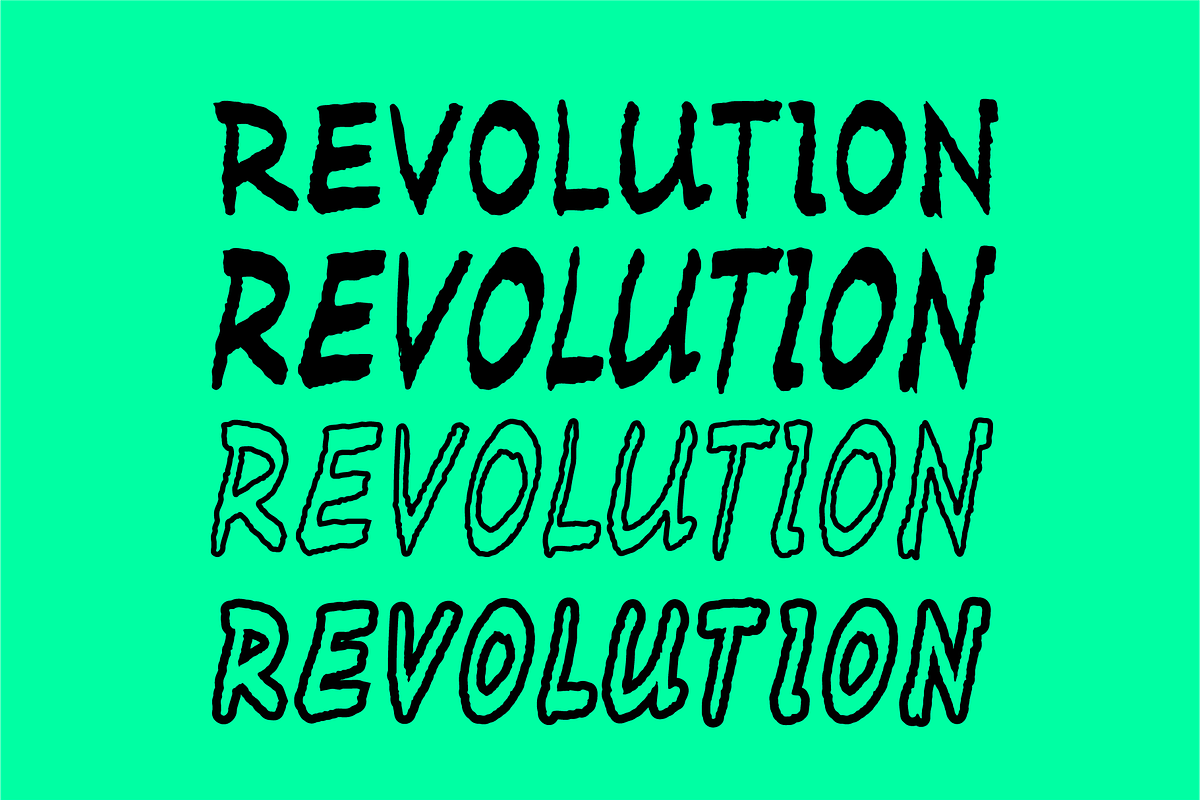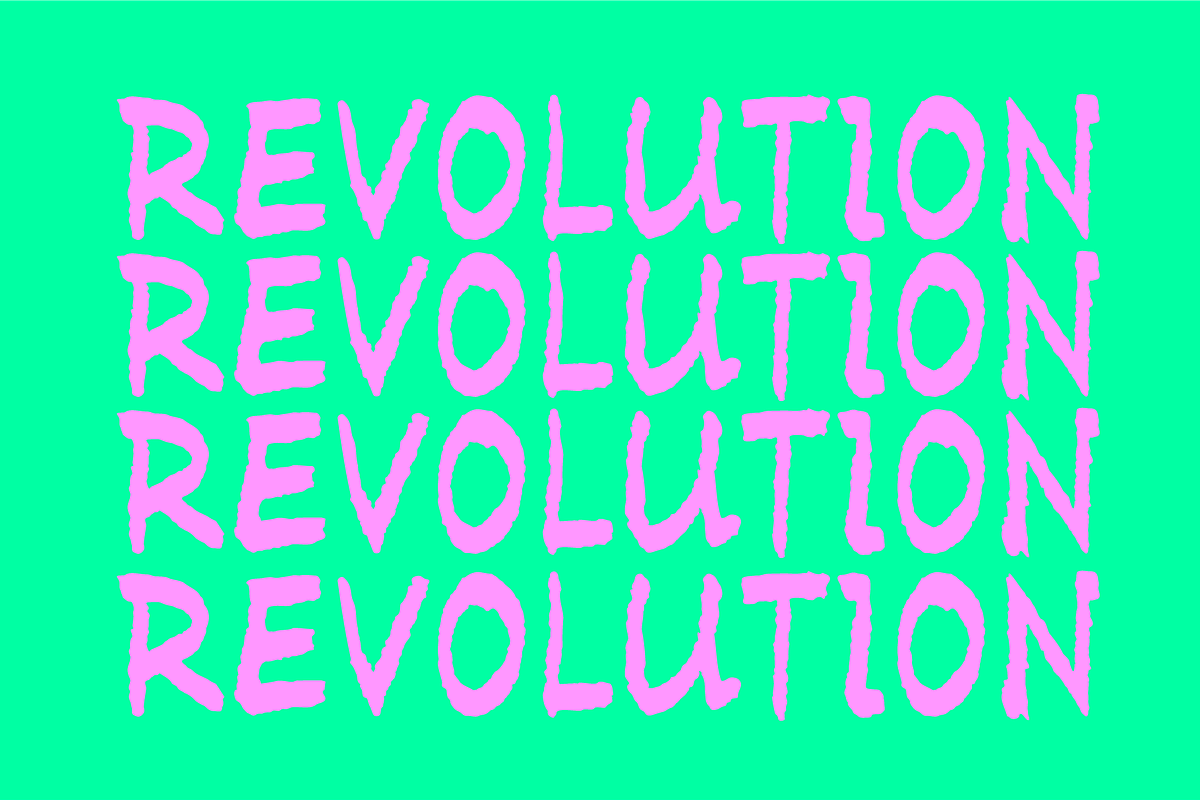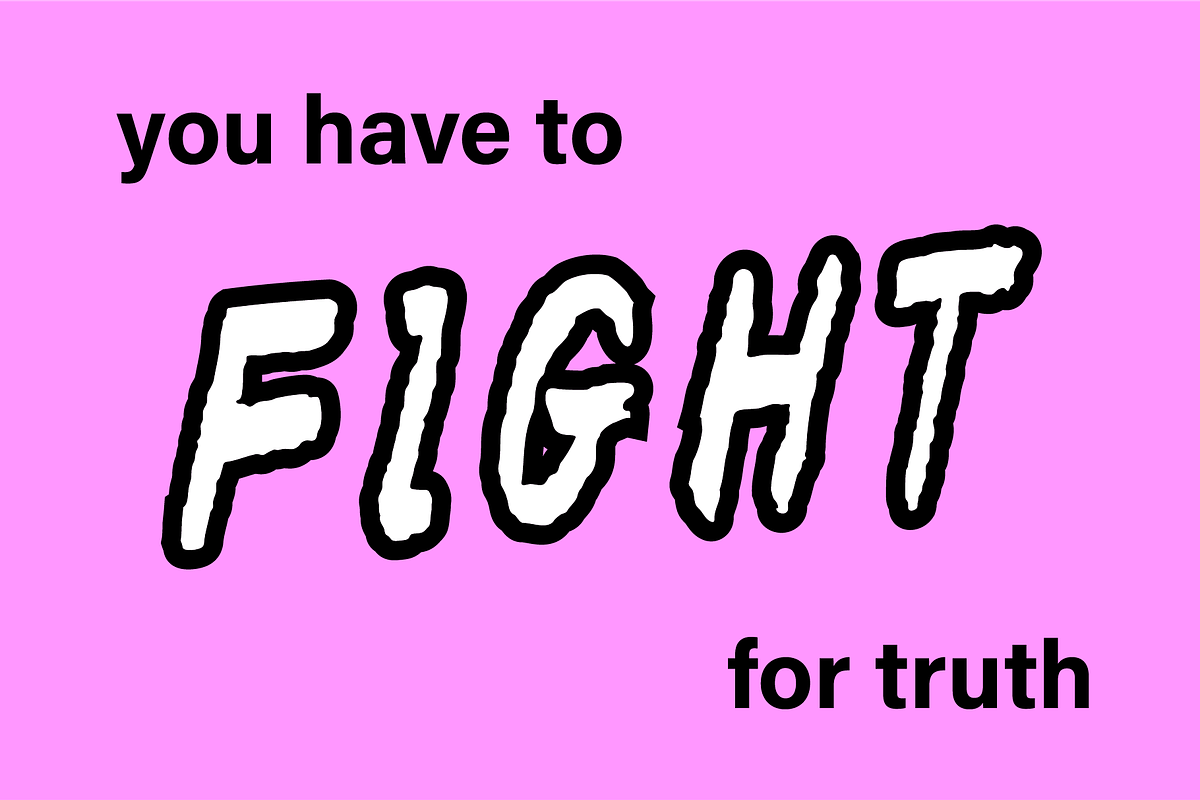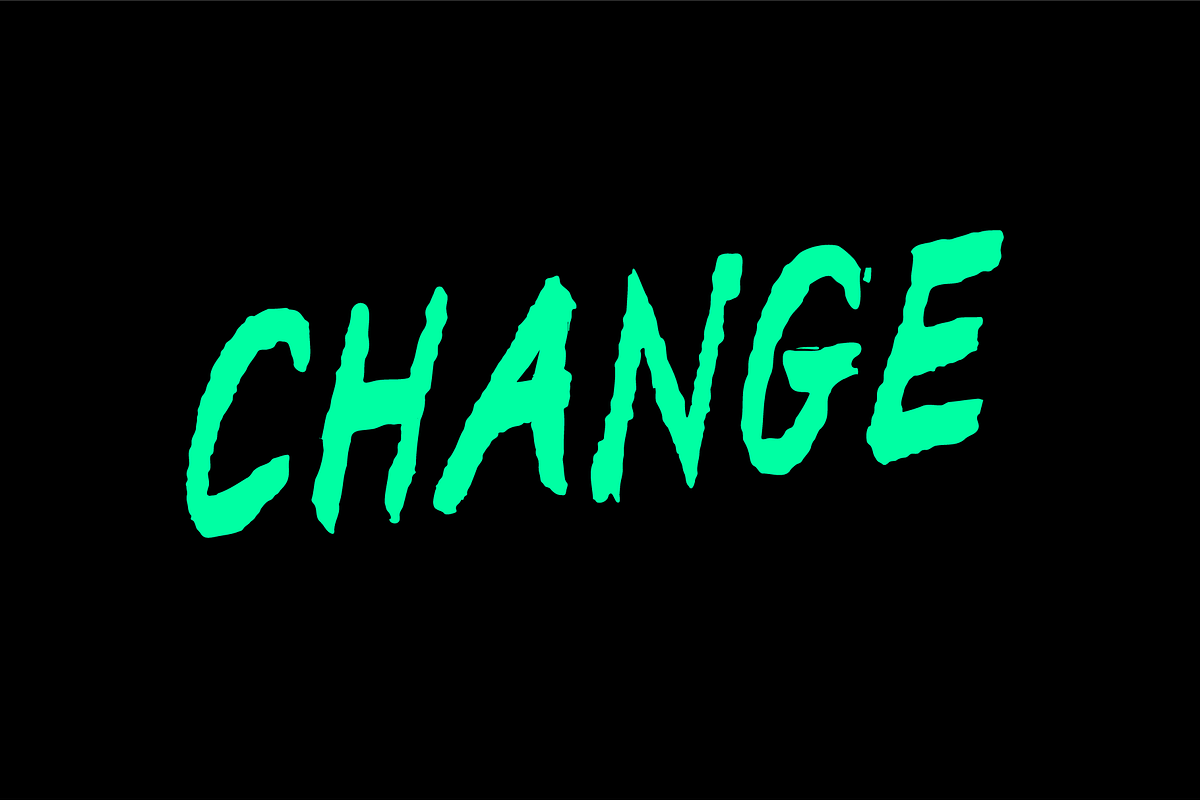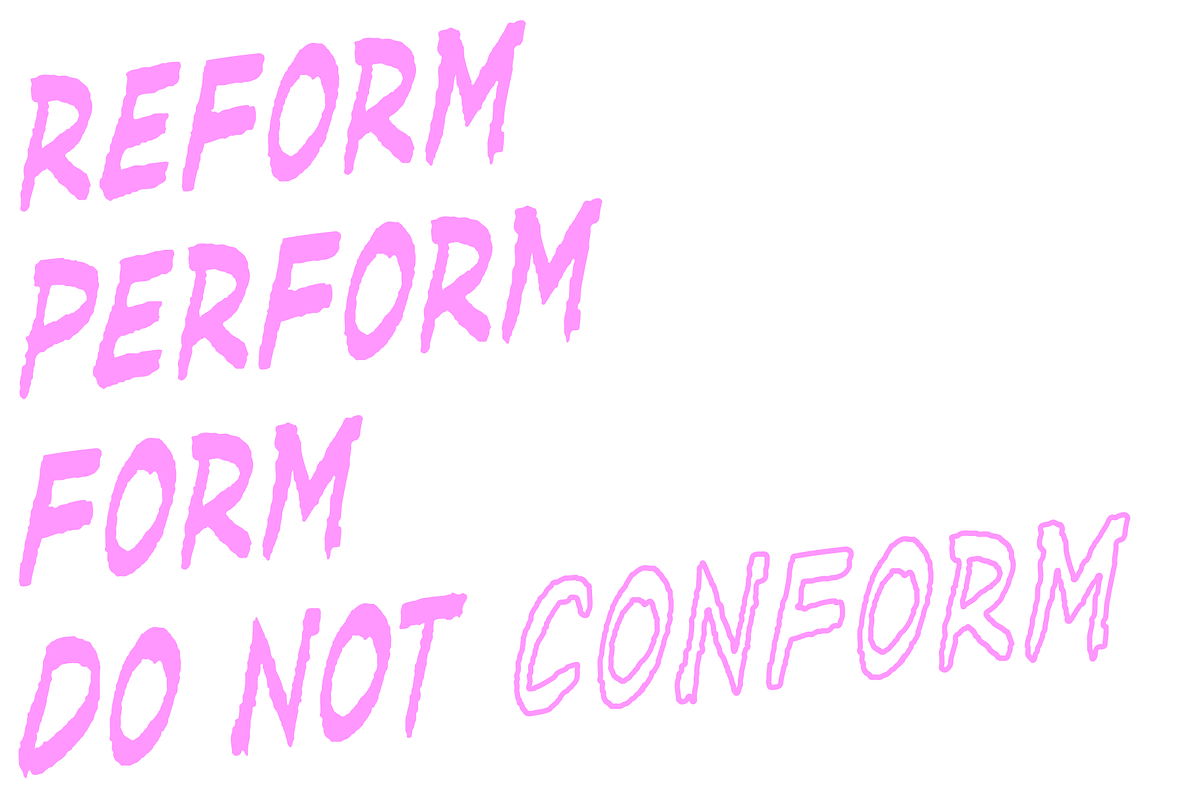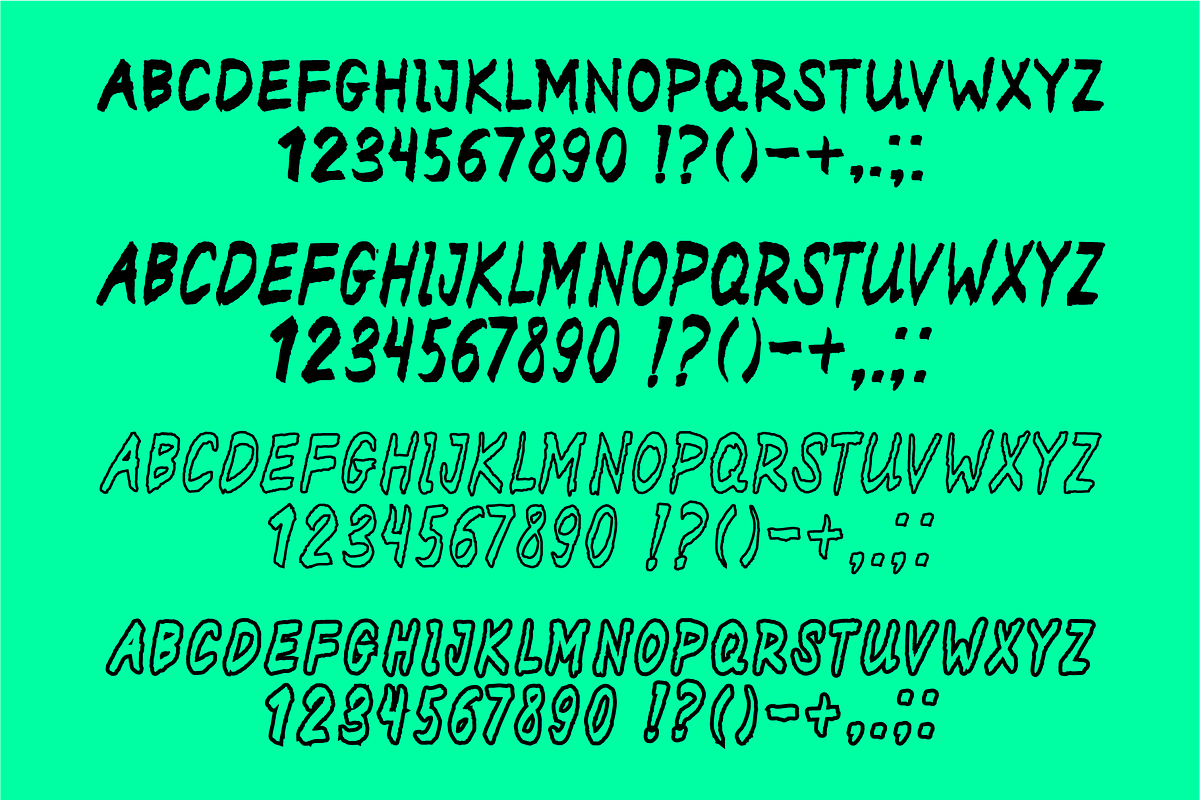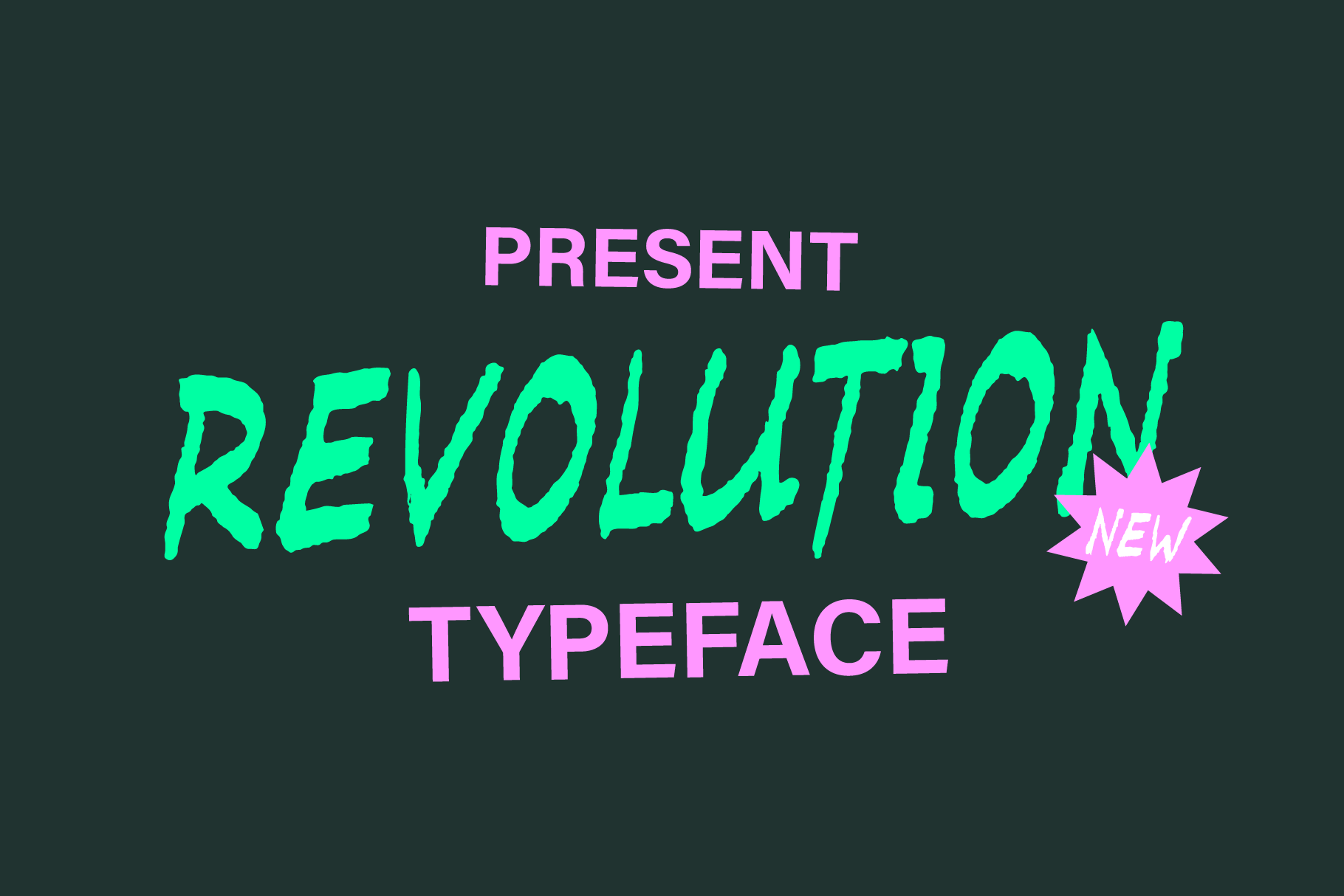
Brush font Revolution.
Revolution font is a family of handwriting fonts made by hands and transformed into digital product. It is great for logo design, posters, in contemporary acid style.
- Italic
- Outline
- Thick Outline